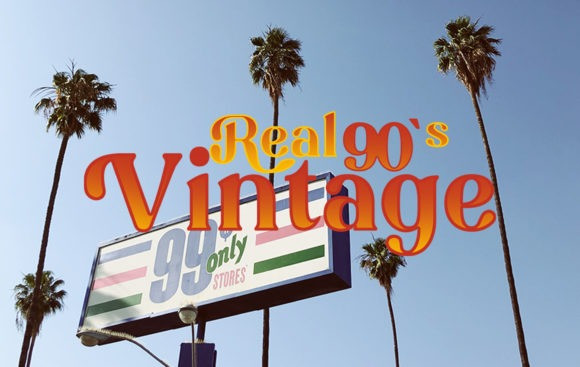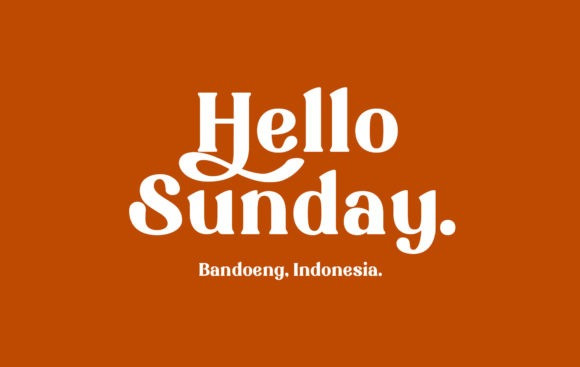
Barshake Font
Barshake Revengers is a cool and trendy serif font. No matter the topic, this font will be an incredible asset to your fonts’ library, as it has the potential to elevate any creation.